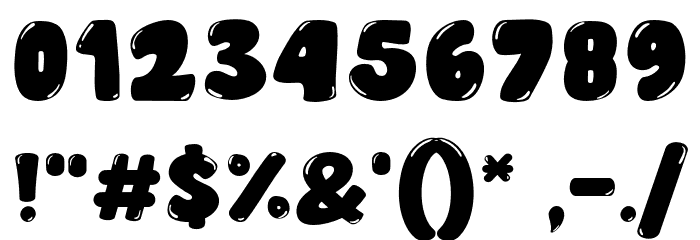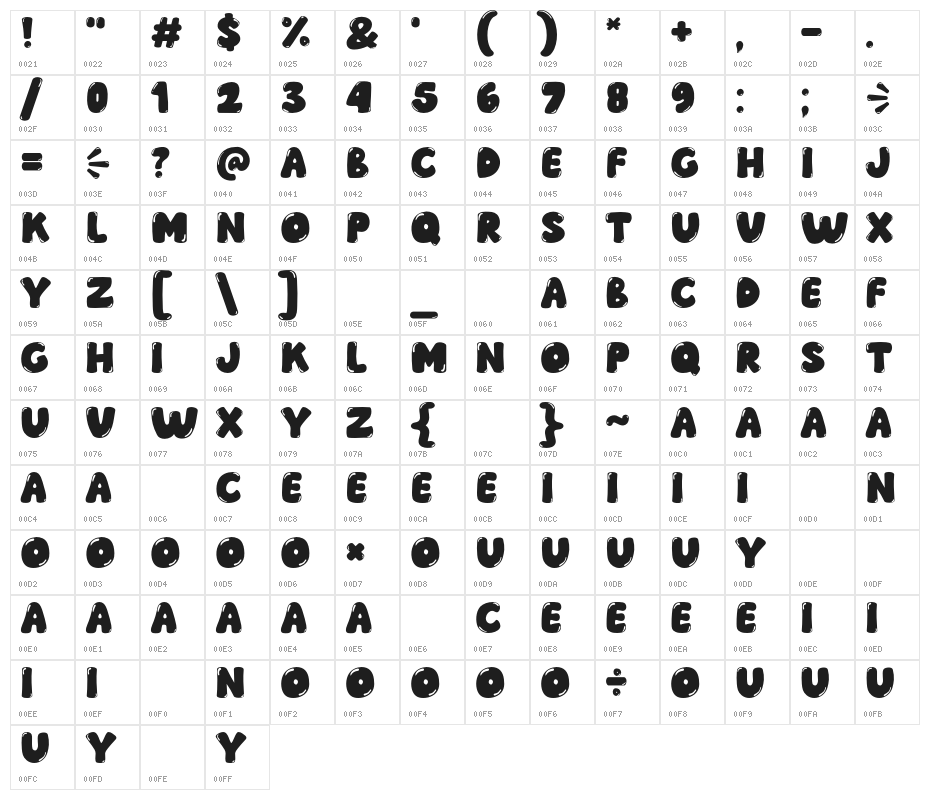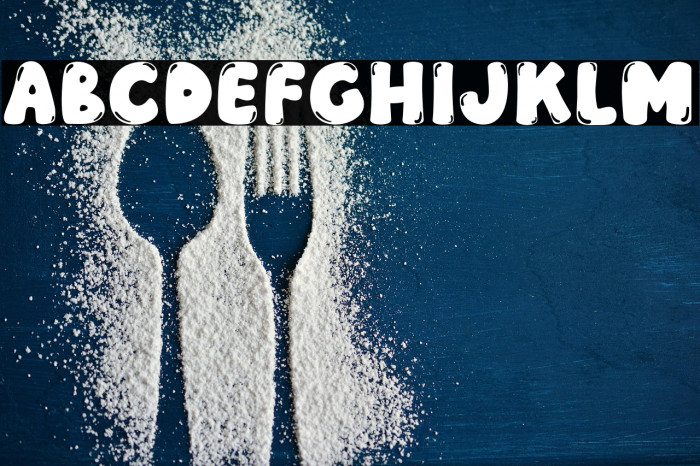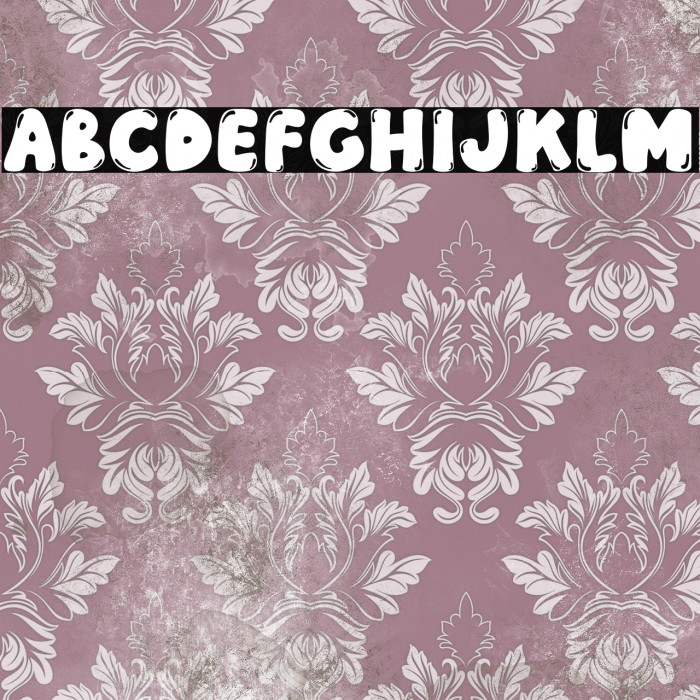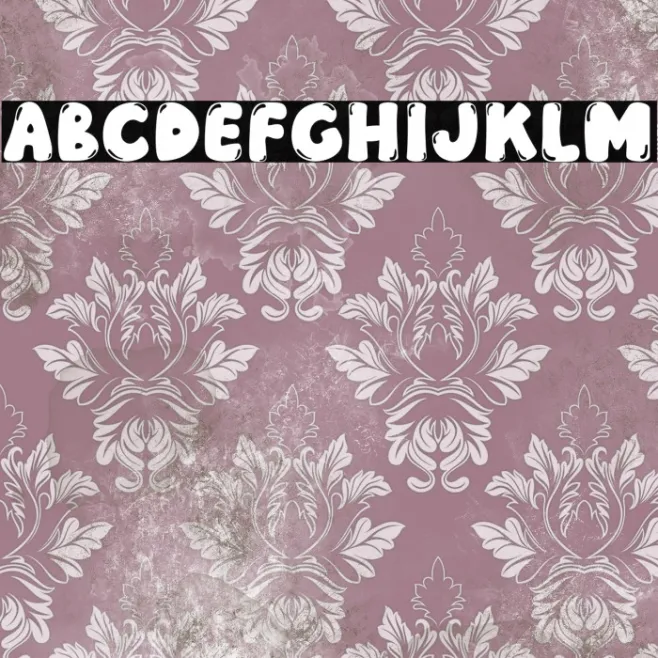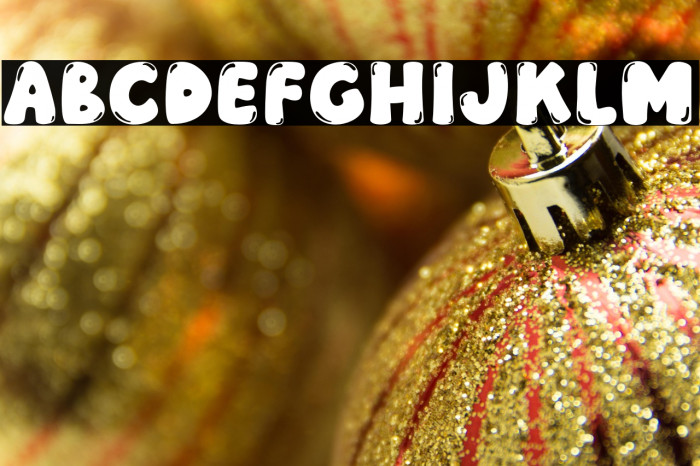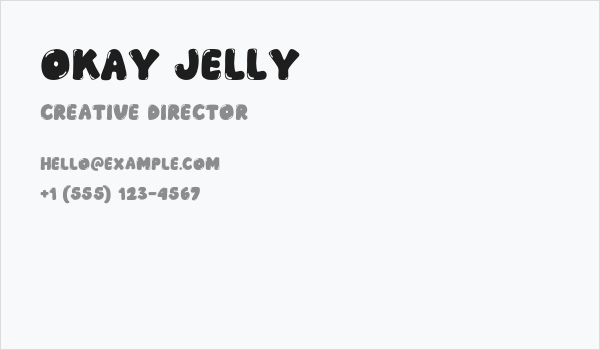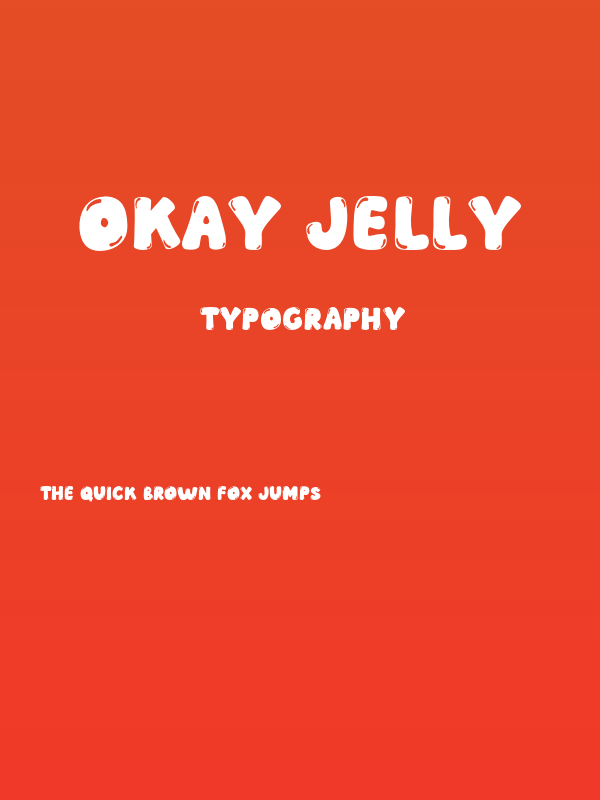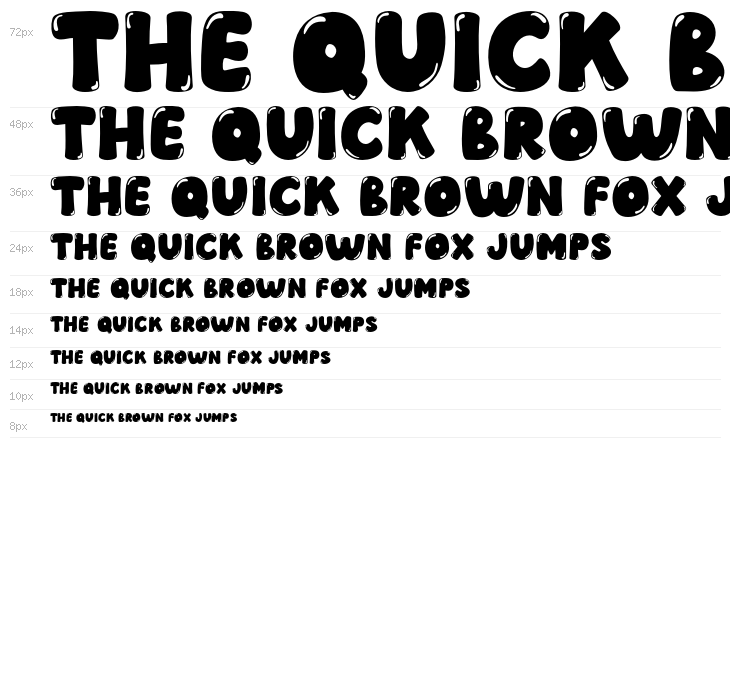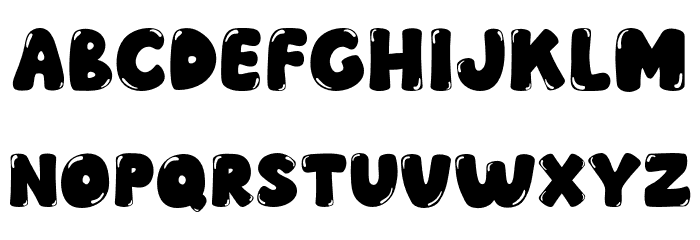
Okay Jelly Font
Okay Jelly Description
This playful and bold font features a bubbly, rounded style that exudes a sense of fun and whimsy. Each character is thick and substantial, with a glossy appearance that mimics the look of inflated balloons or jelly. The font's design is consistent across uppercase and lowercase letters, as well as numbers and special characters, maintaining a cohesive and lively aesthetic. Its exaggerated curves and smooth edges make it highly legible while adding a touch of personality and charm. The font's unique style is perfect for projects that require a lighthearted and engaging visual element.
| Overall Style | Playful, Fun, Whimsical |
| Proposed Projects | Ideal for children's book covers, playful branding, party invitations, and creative posters. |